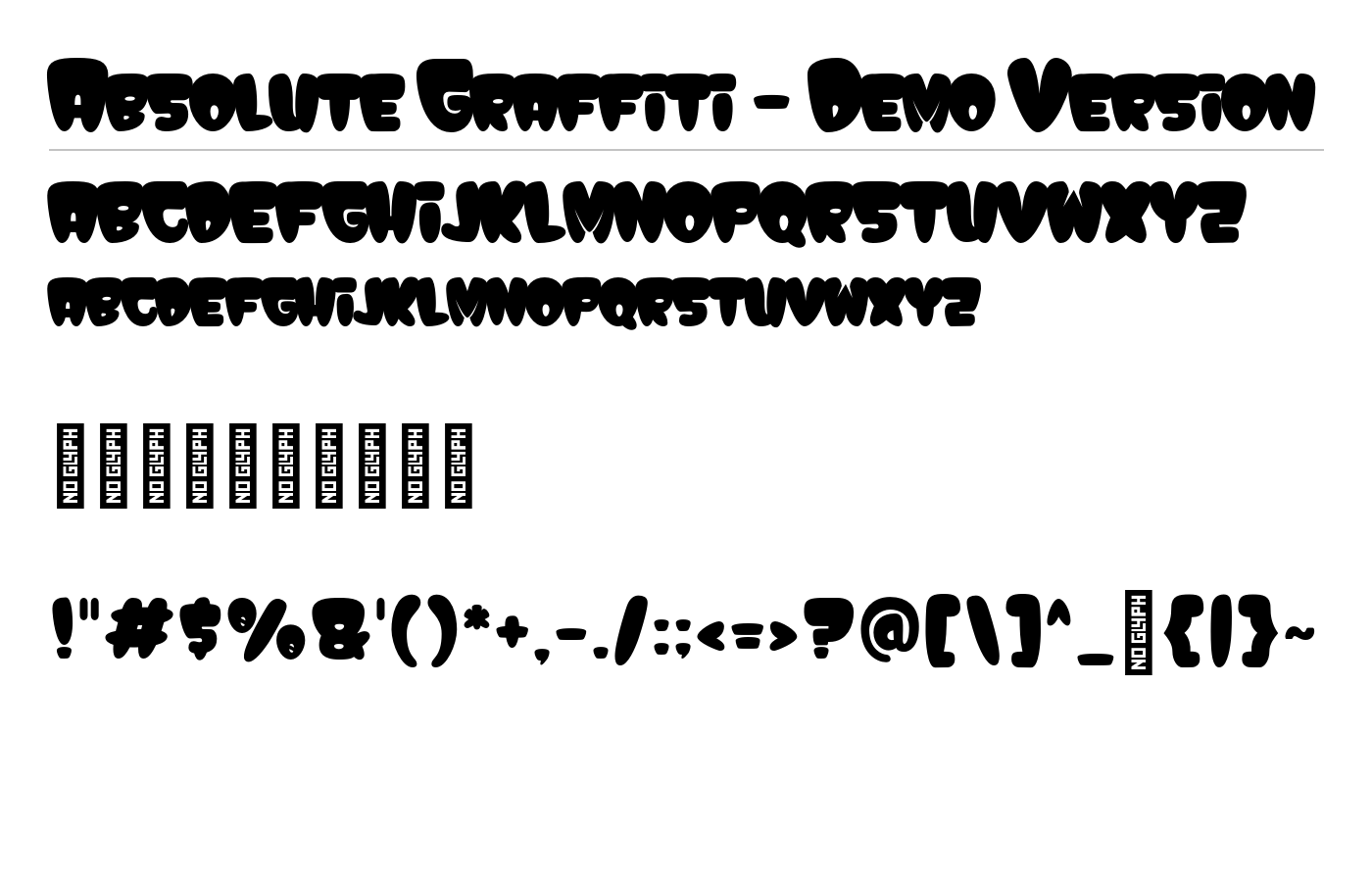
Absolute Graffiti - Demo Version is a bold, playful display font with a strong street art vibe, characterized by its thick, rounded letterforms and uneven, bubbly shapes. Its heavy weight and informal style make it perfect for eye-catching headlines, posters, or branding that aims to evoke urban energy and youthful creativity. This font works best in designs where a fun, casual, and expressive look is desired, rather than in body text or formal settings.
Absolute Graffiti - Demo Version Font
About Absolute Graffiti - Demo Version Font
| Font family | Absolute Graffiti - Demo Version Font |
| Designer | Sigit Dwipa Raharjo |